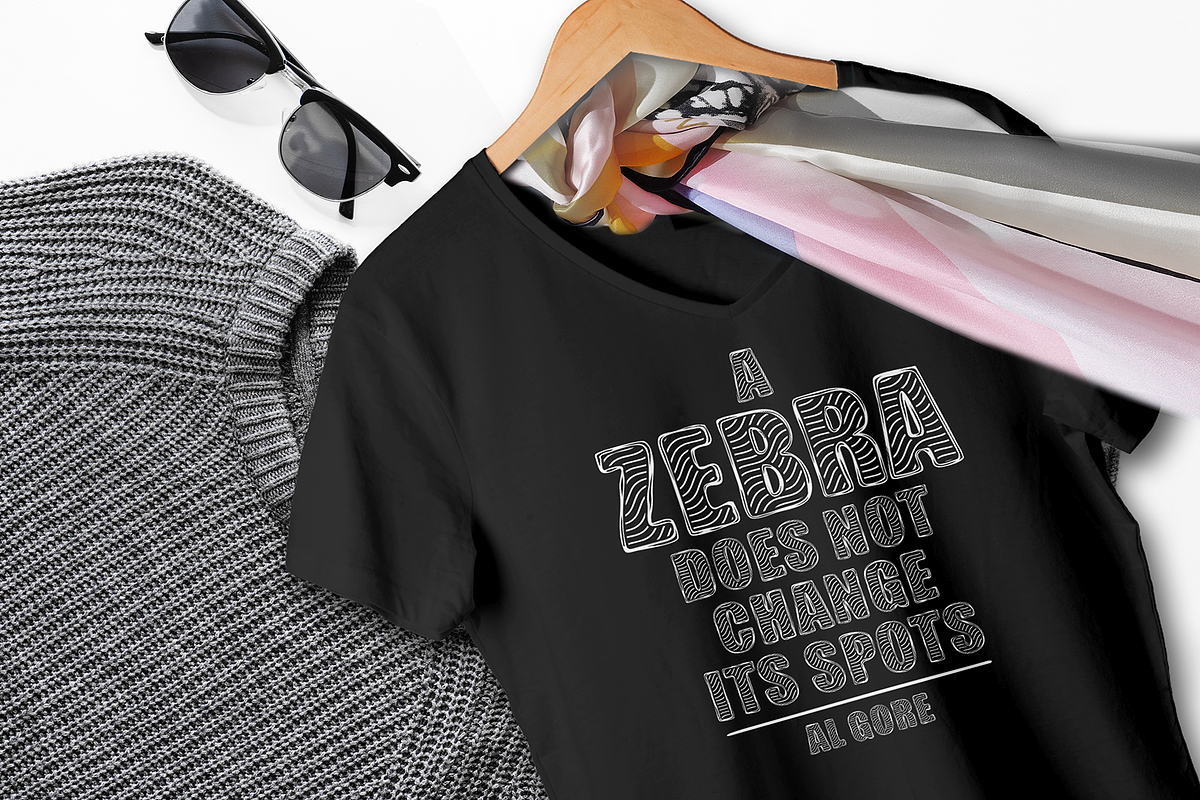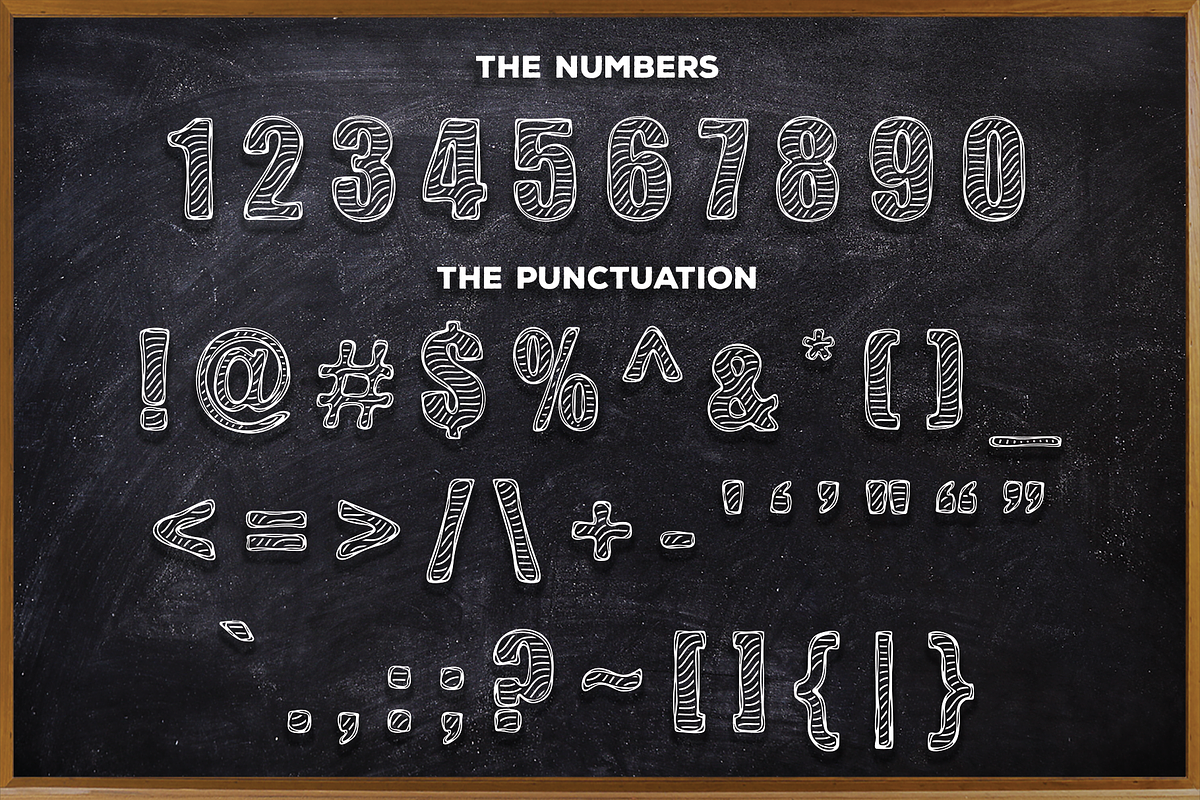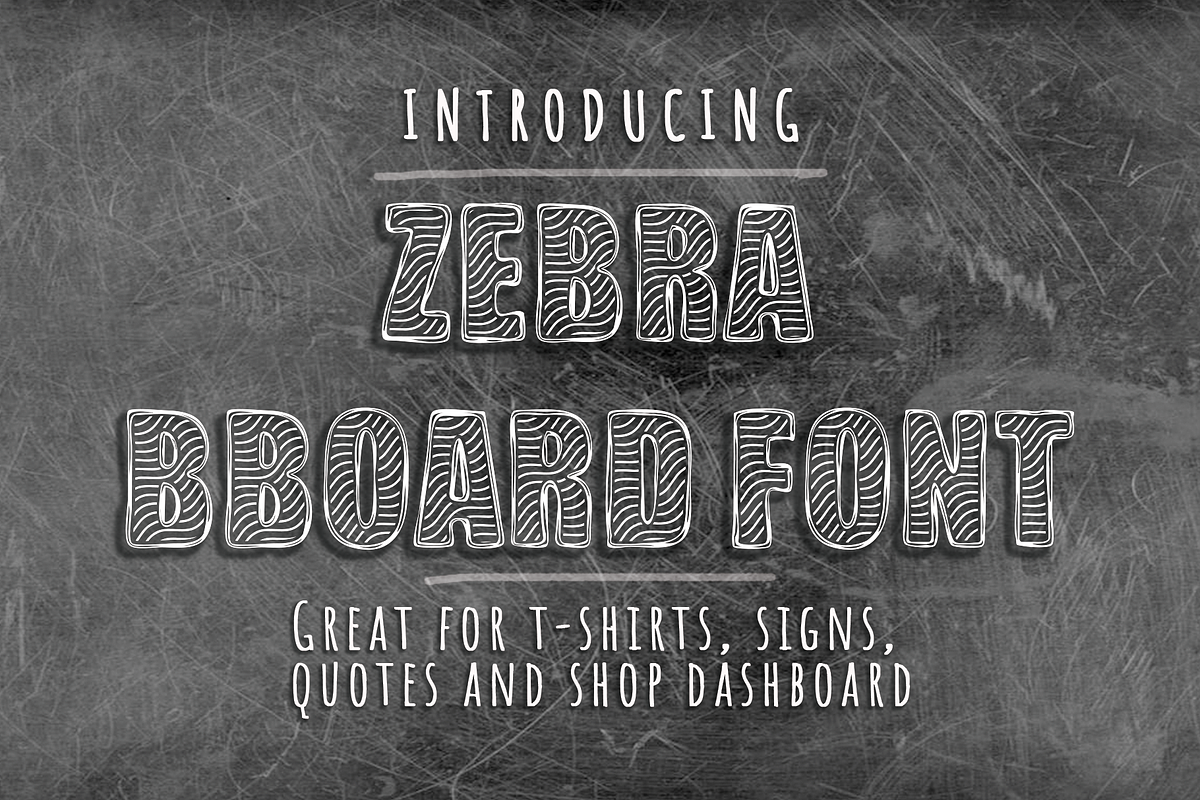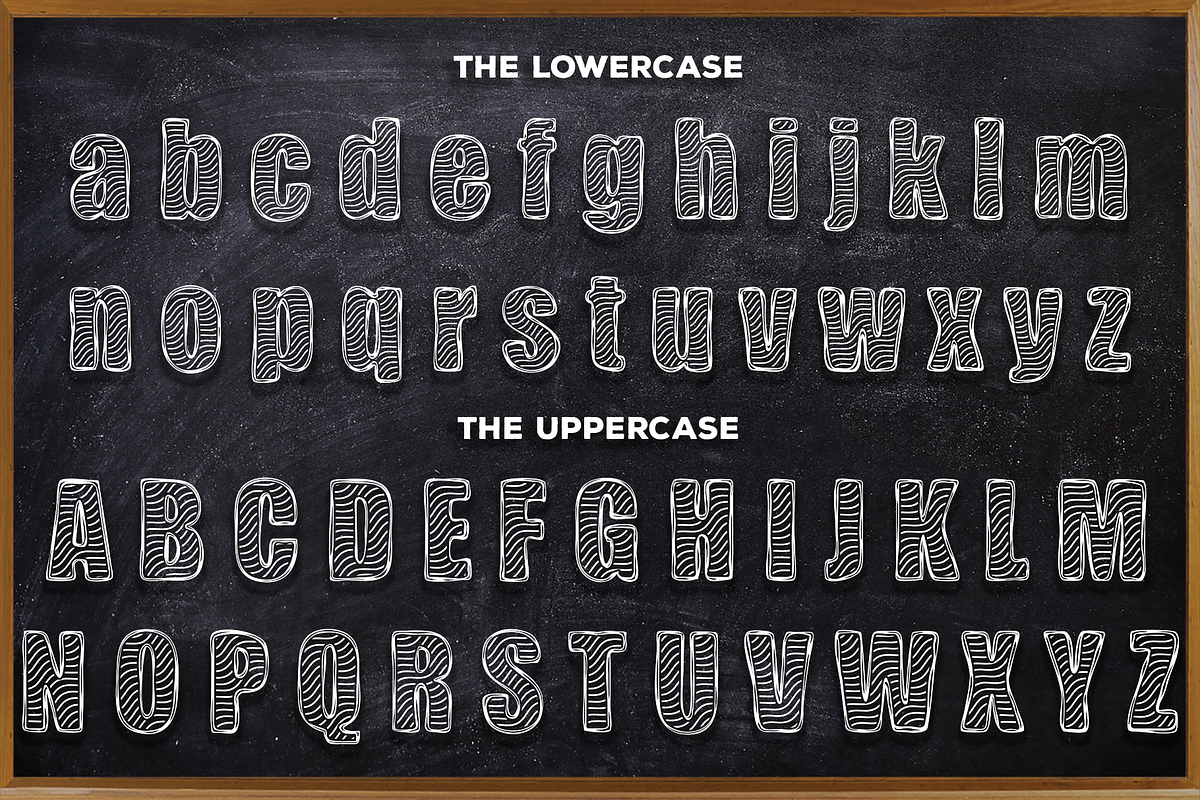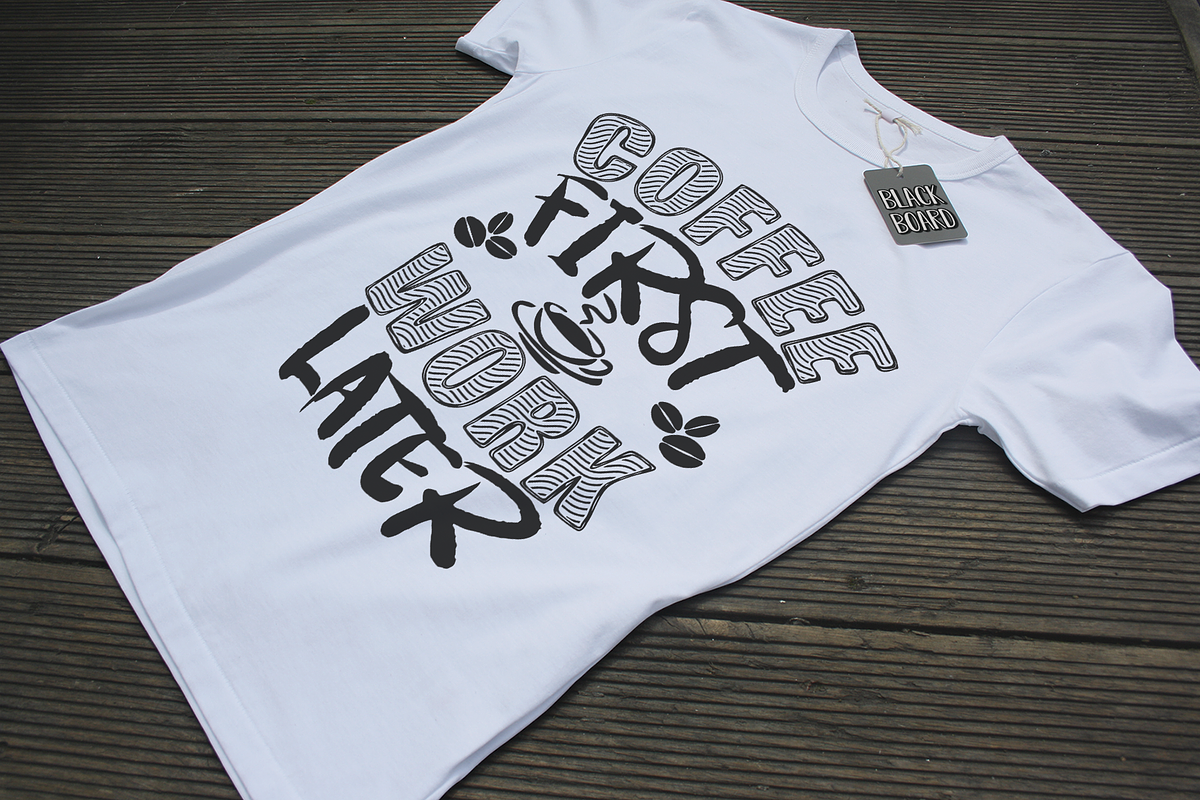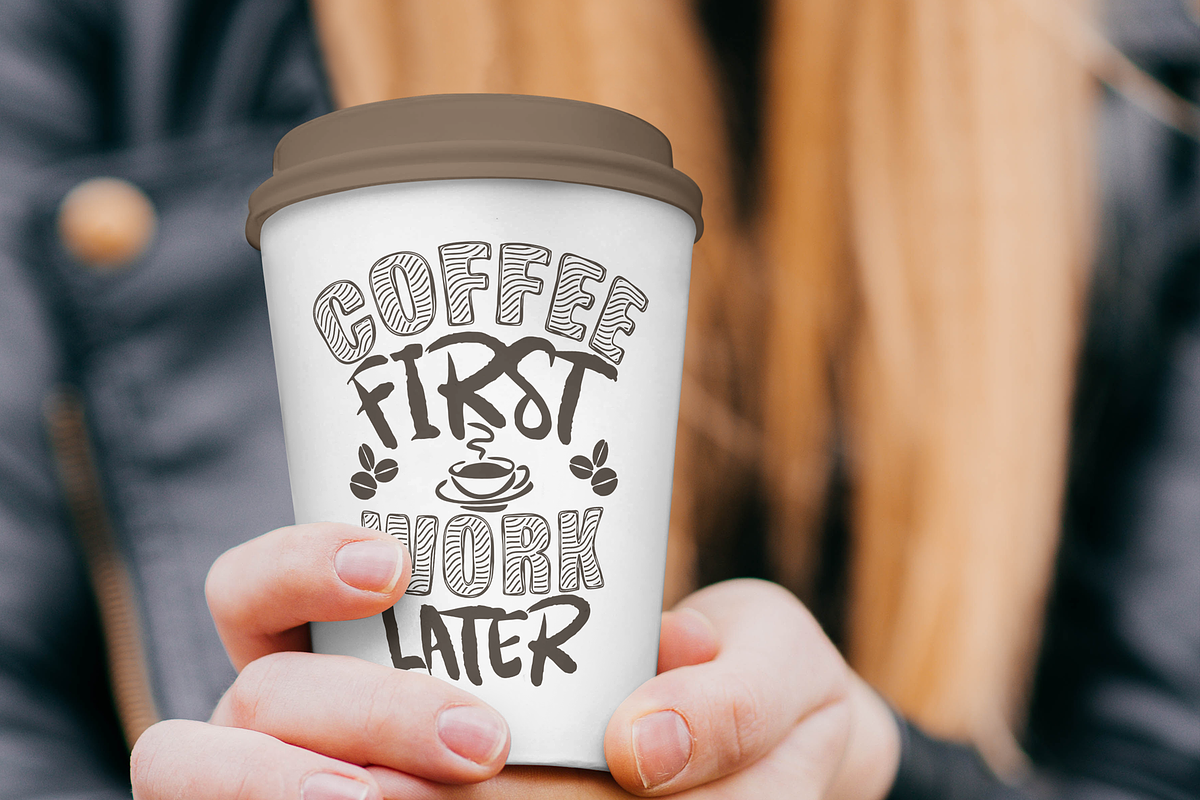
Zebra BBoard - Decorative Font
Introducing – Zebra BBoard !
An upper and lowercase decorative font with abrupt outlines, filled by a wavy zebra-striped pattern. It is inspired by the hand-written chalk lettering on blackboard menus in coffee shops.
The idea is that while it resembles a hand-drawn font, its core is entirely built on the foundation of a typical condensed sans-serif typeface.
Its appearance is contemporary, as well as original and is especially suitable for any display use, such as: headlines, logos, posters, packaging, T-shirts, postcards, etc.